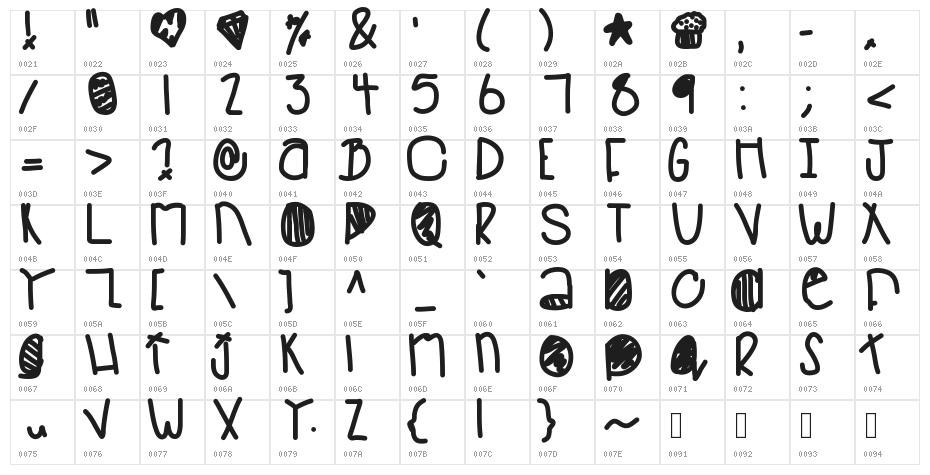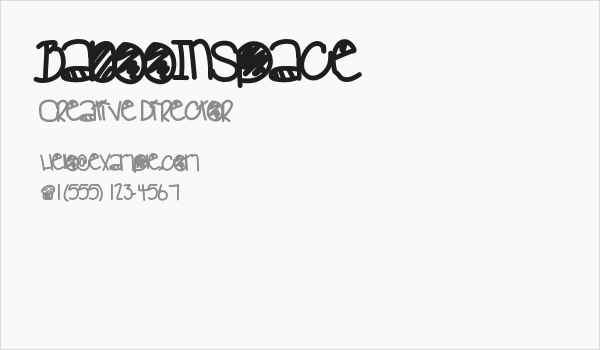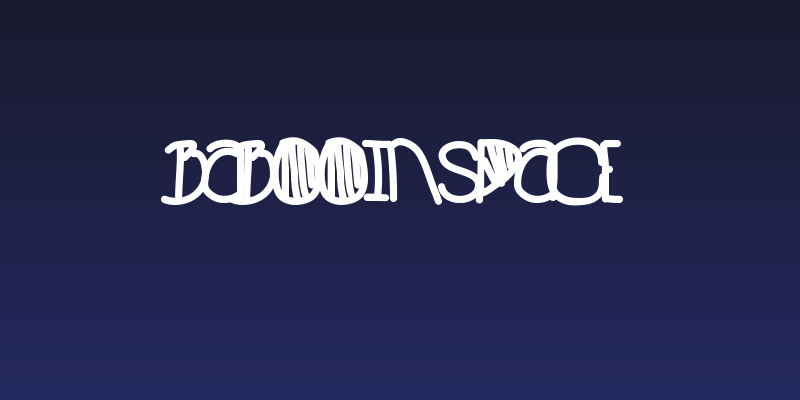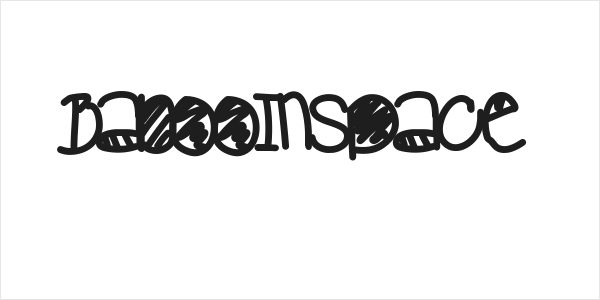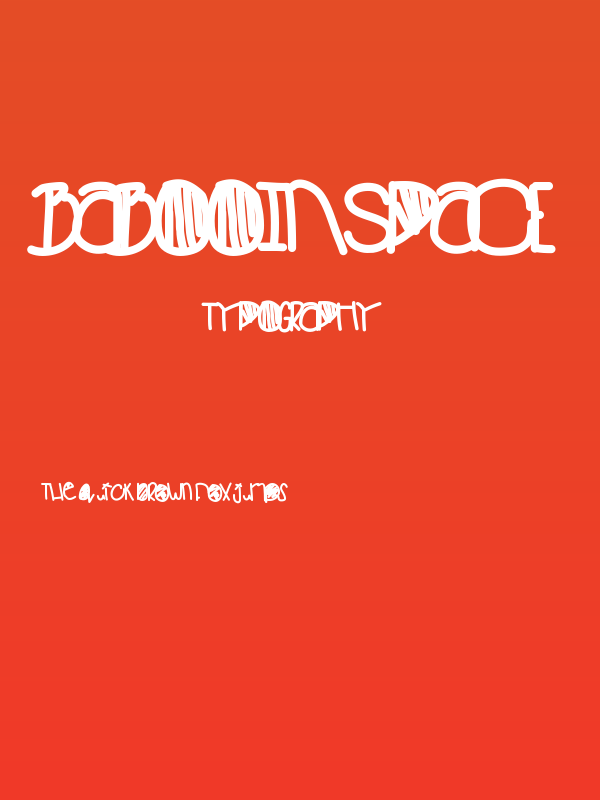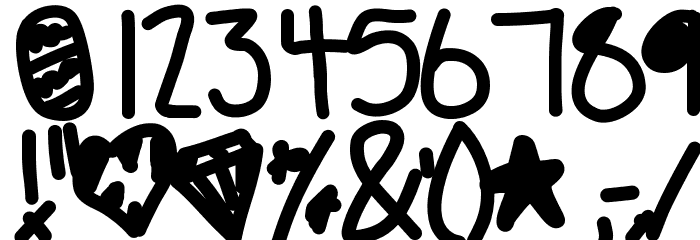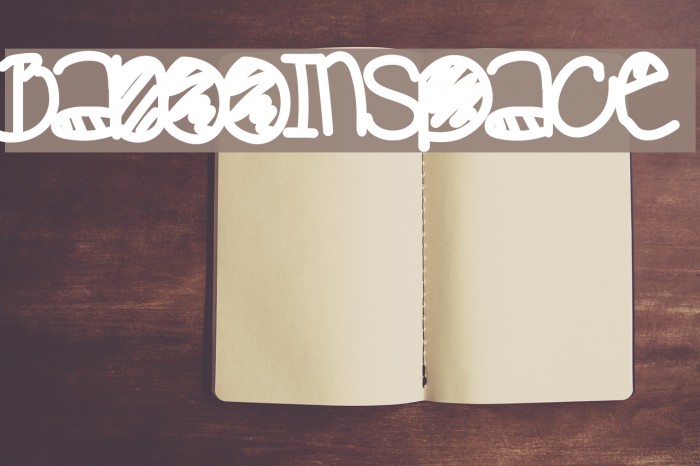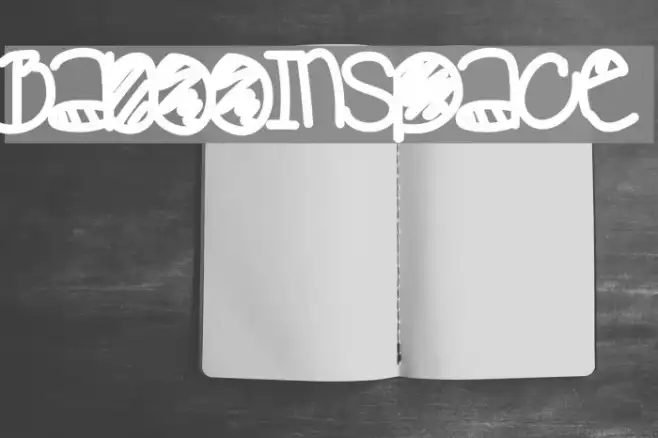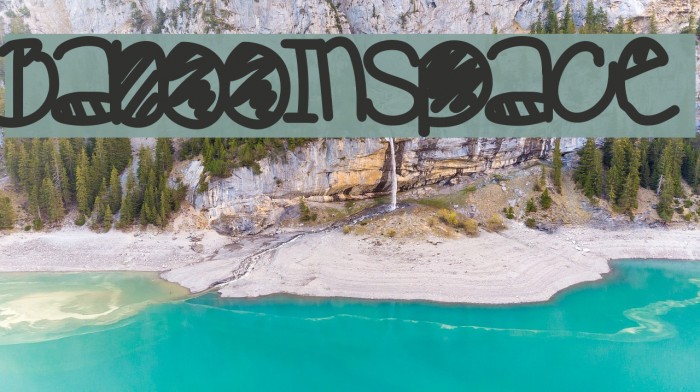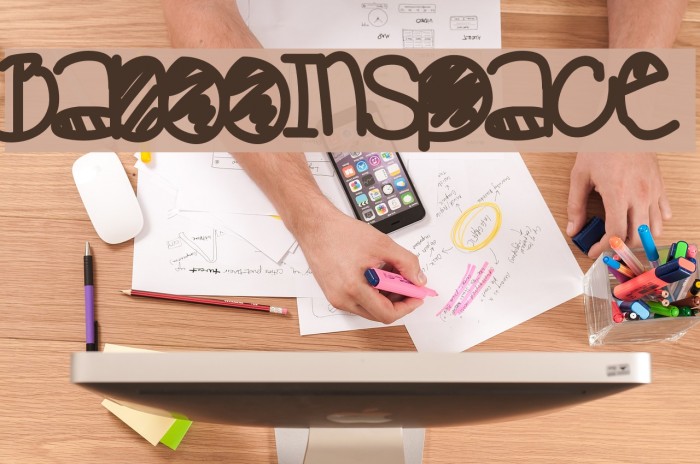
BabooInSpace Font
BabooInSpace Description
This font exhibits a playful and whimsical style, characterized by its bold, hand-drawn appearance. The letters are irregular and feature a mix of rounded and angular shapes, giving it a unique, artistic flair. The uppercase and lowercase letters maintain a consistent style, with some letters filled in with scribbles, adding to its quirky charm. Numbers and special characters follow the same playful design, making it suitable for creative and informal projects. The overall look is reminiscent of doodles or graffiti, making it stand out with its distinctive personality.
| Proposed Projects | Ideal for children's books, creative posters, informal invitations, and artistic branding. |